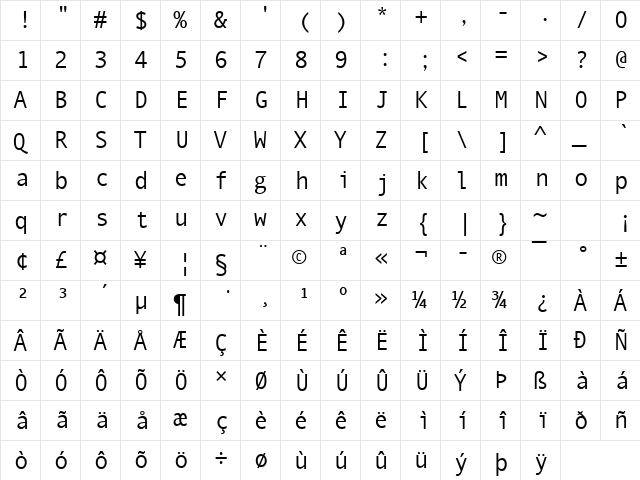
QuickType Mono Regular
Design Context for QuickType Mono Typeface
QuickType Mono brings the precise, column-aligned rhythm of monospaced typography to designs that value technical clarity and systematic order.
A natural fit for code editors, technical documentation, developer-focused branding, and terminal-inspired UI.
Pro Tip: Pair QuickType Mono with a proportional sans for UI contexts where code-style labels and regular body copy need to coexist.